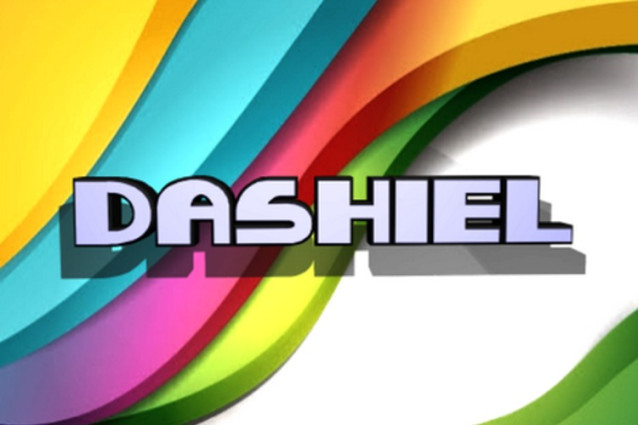
Dashiel Font
Dashiel Font is a powerful, futuristic font family designed by Iconian Fonts. Inspired by high-tech machinery, retro-sci-fi aesthetics, and bold geometric structures, Dashiel delivers a strong visual impact that instantly grabs attention.